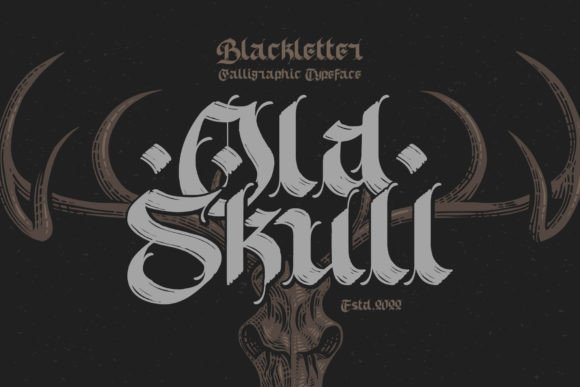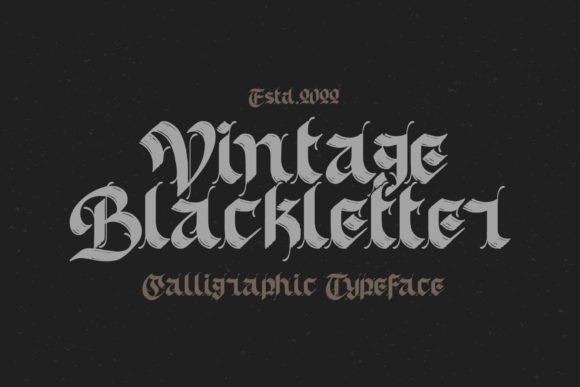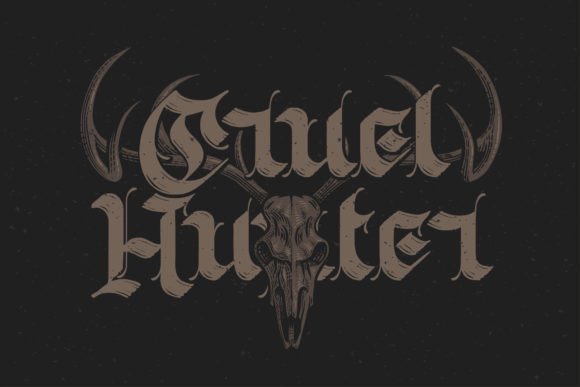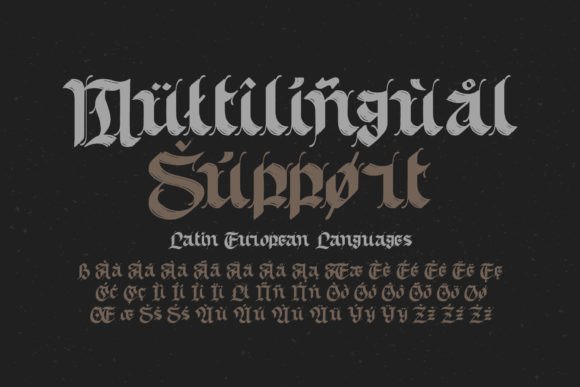
Old Skull Font: A Vintage Gothic Display Font for Cricut & DIY
About the Old Skull Font
Get ready to be inspired by Old Skull Font, a fresh and dynamic typeface for modern creators. This vintage Gothic-style typeface was originally made using a flat calligraphic pen which makes it look organic and natural. Old Skull is perfect for creating original t-shirt prints and tattoo designs.
Its strong vertical strokes and dramatic serifs make Old Skull ideal for headlines, posters, and short impactful branding elements. The organic texture works well in contexts emphasizing a handcrafted, vintage aesthetic. However, its highly stylized forms and relatively low x-height make it unsuitable for body text or UI elements requiring high readability.
The font’s rebellious and slightly aggressive personality pairs well with clean sans-serif fonts like Futura or Gill Sans for a balanced contrast. For a more vintage feel, consider pairing it with a complementary serif like Garamond or Didot. Avoid pairing it with overly ornate script fonts which would clash with Old Skull’s bold character.
Old Skull’s personality is best described as bold, rebellious, and vintage. Brands that value authenticity, a strong visual identity, and a touch of darkness would find it a suitable choice. Think motorcycle apparel, rock music, or edgy fashion brands.